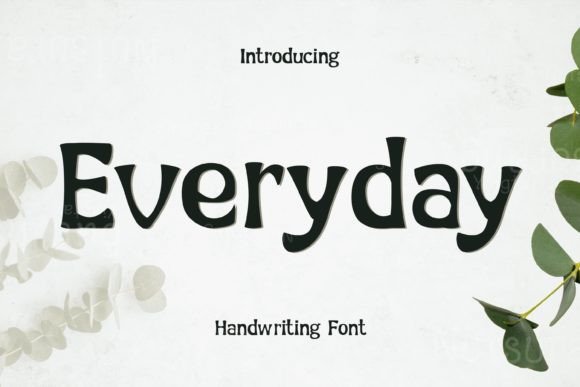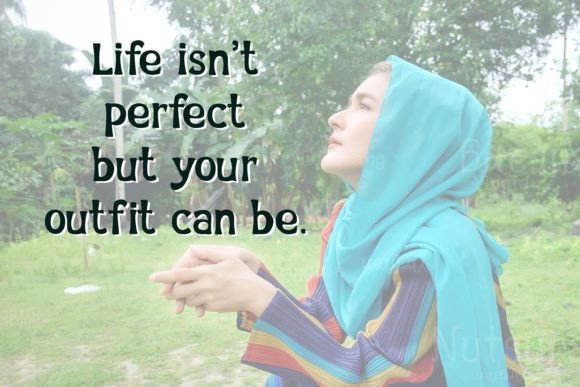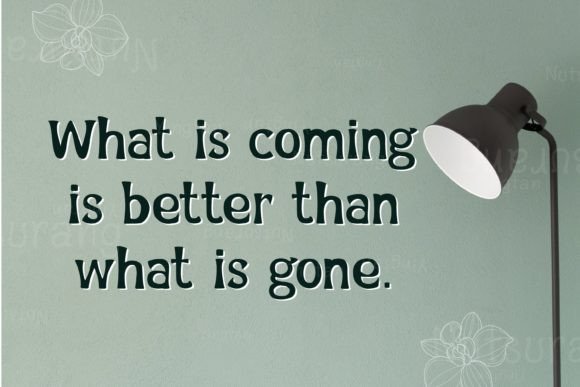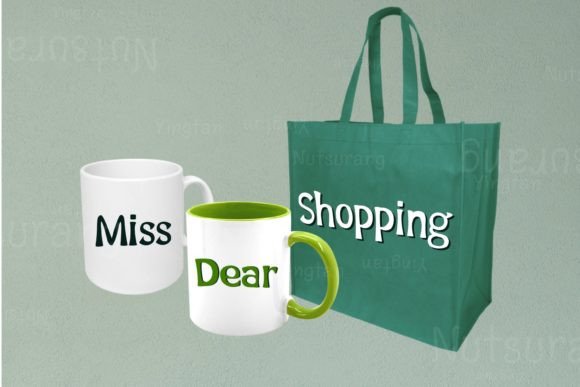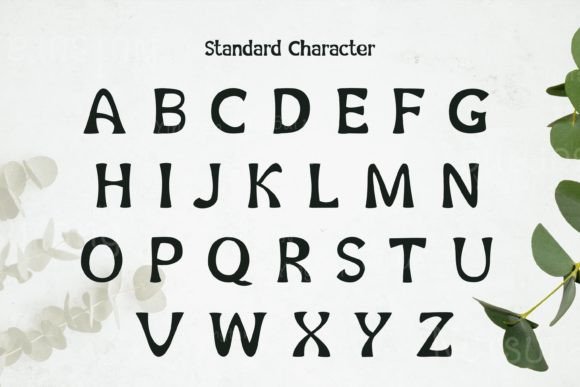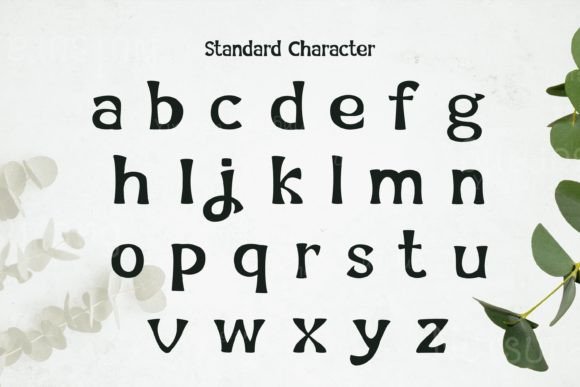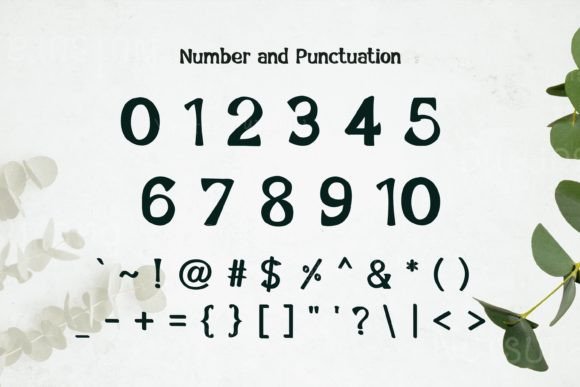
Everyday Font
About Everyday Font
“Everyday” is a font that exudes simplicity and natural charm, designed in a clean and handwritten style. Its unpretentious yet elegant appearance makes it a versatile choice for a wide range of creative projects. By incorporating “Everyday” into your designs, you can enhance their visual appeal and make them truly stand out.
**Clean and Natural Elegance**: “Everyday” is characterized by its clean and natural elegance. The font’s straightforward design and effortless strokes create a sense of authenticity, making it suitable for projects that require a genuine and down-to-earth feel. Its simplicity adds a touch of elegance without overwhelming the viewer.
**Versatile Application**: The font’s versatility allows it to seamlessly integrate into various design contexts. Whether used in branding, social media graphics, posters, invitations, or any other creative endeavor, “Everyday” adapts to different applications, enhancing the overall aesthetics of the project.
**Subtle Standout Factor**: While “Everyday” maintains a subtle and understated appearance, it possesses a standout factor that sets it apart. Its natural handwritten style adds a personal touch to the text, creating a connection with the audience. This subtle uniqueness catches the eye and leaves a lasting impression on viewers.
**Confident Addition to Projects**: By adding “Everyday” to your creative projects, you can approach your designs with confidence. The font’s reliability and understated elegance make it a dependable choice for various applications. It allows your designs to shine without overwhelming the message, ensuring a balanced and harmonious visual presentation.
In summary, “Everyday” is a font that embodies simplicity and authenticity. Its clean and natural handwritten style adds a touch of elegance to your projects, allowing them to stand out with subtlety and grace. Whether used in digital or print media, “Everyday” confidently enhances the visual impact of your creative endeavors, ensuring they leave a lasting impression on viewers. Let “Everyday” be the understated yet impactful element that elevates your designs to a new level of elegance and sophistication.